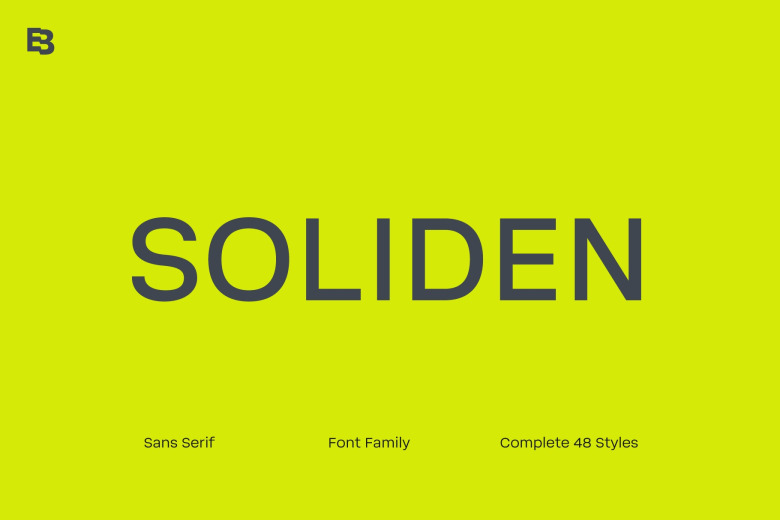
Soliden Font
Soliden is a modern geometric sans serif font with a strong and futuristic style offered in 2022 by the designer Eko Bimantara. It may be used for big display and practical importance. The letterforms are quite large and set in a spacious counter.
A total of 8 weights varying from Thin to Black and 3 styles stretched from condensed, ordinary, and increased, which complete a total of 48 styles that include pretty significant family fonts. Soliden contains 394 glyphs and supports Latin languages widely.
Soliden Sans Serif Font Family